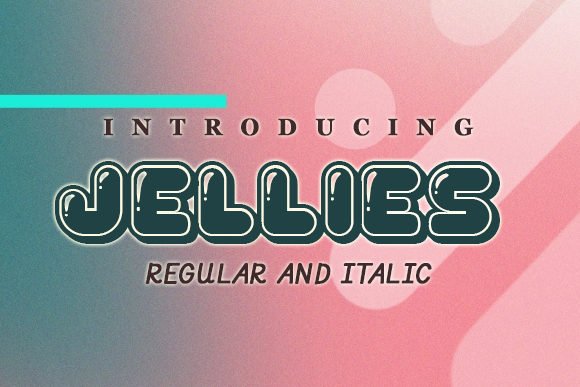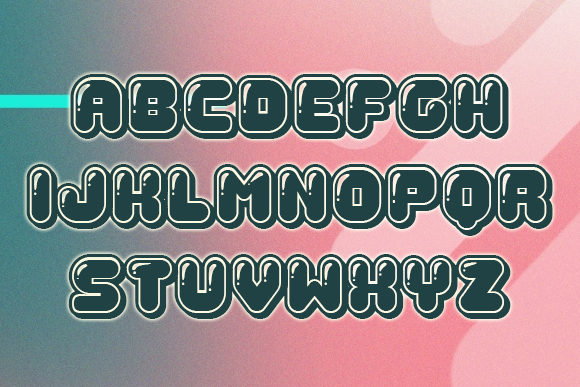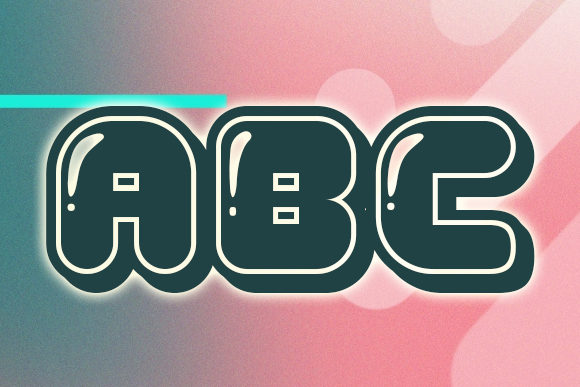
The Perfect Splash of Whimsy: Unlocking the Power of Jellies Font
Have you ever found yourself staring at a blank canvas, desperately seeking the perfect spark to bring your design to life? For many creatives, it’s that one special font that can make all the difference. It’s like finding the missing puzzle piece – everything suddenly clicks, and your vision becomes a stunning reality.
Enter Jellies Font, the ultimate display font designed to add a touch of playfulness and charm to your designs. With its unique and captivating look, Jellies Font is the perfect addition to any project, from eye-catching advertisements to whimsical children’s books. Whether you’re a seasoned designer or just starting out, Jellies Font is an invaluable asset that will take your creations to the next level.
Jellies Font Key Features
- Font Family: Jellies is a sans-serif font family with 4 styles: Light, Regular, Medium, and Bold.
- Character Set: Includes a wide range of characters, including Latin, Cyrillic, and Greek alphabets, as well as punctuation and symbols.
- Unique Characteristics: Jellies font features a unique, rounded design with a subtle gradient effect, giving it a modern and playful feel.
Review of Jellies Font
I recently had the chance to work with the Jellies font, and I’m excited to share my honest thoughts with you. Overall, I was impressed with its unique style and versatility.
- Unique Style: Jellies font has a distinct, playful feel that’s perfect for creative projects, like children’s books, advertisements, or social media graphics.
- Legibility: Despite its quirky appearance, Jellies font is surprisingly easy to read, even at smaller font sizes.
- Customization Options: The font includes a range of weights and styles, allowing you to customize it to suit your project’s needs.
- Limited Professional Use: Jellies font may not be the best choice for formal, professional projects, as its playful style may come across as unprofessional.
- Lack of Consistency: While the font’s unique style is a strength, it can be inconsistent in certain applications, making it difficult to use across multiple platforms.
Overall, I think Jellies font is a great addition to any designer’s toolkit, but it’s essential to use it judiciously and consider its limitations when choosing the right font for your project.